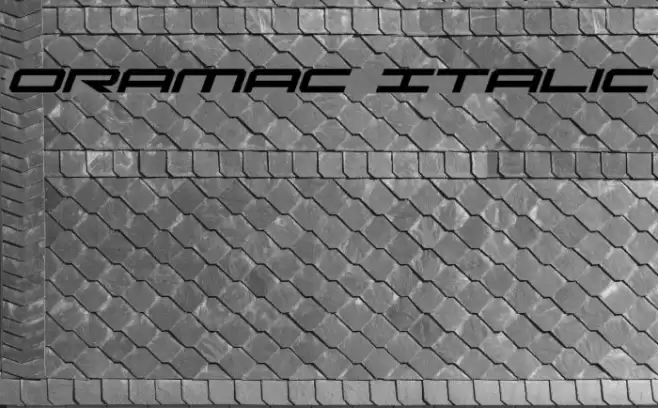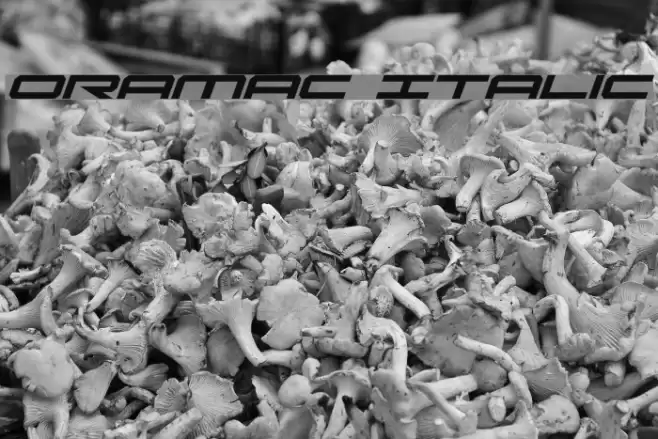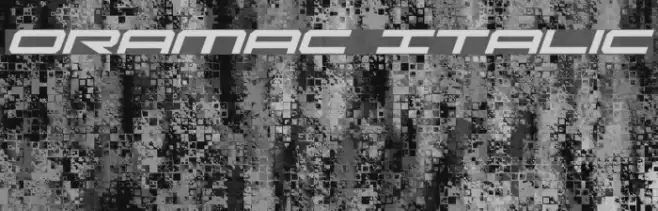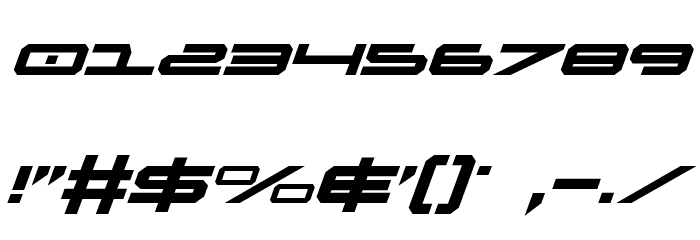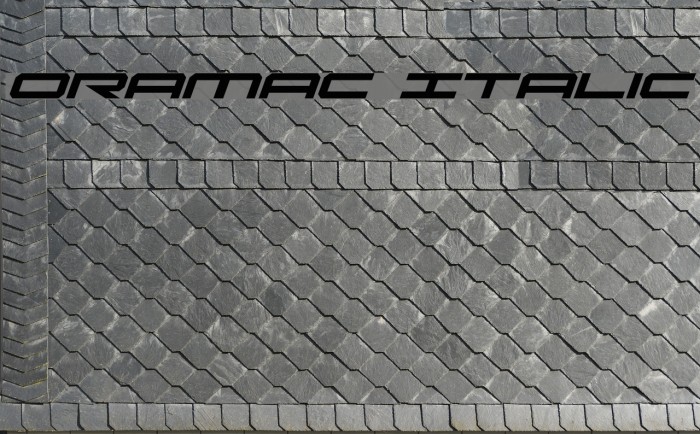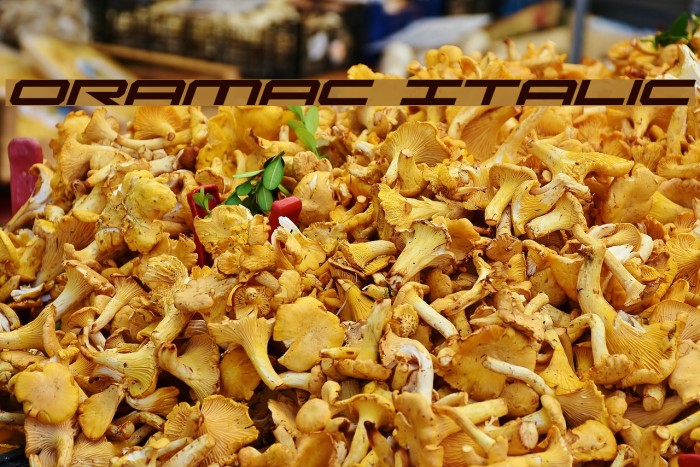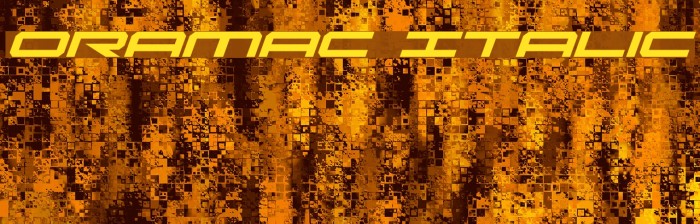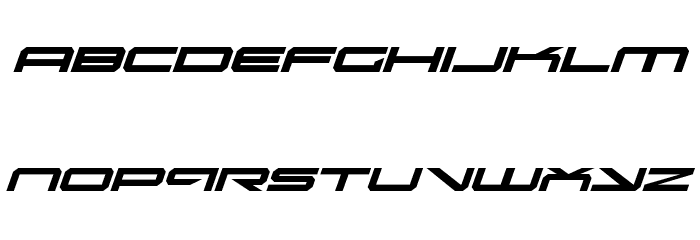
Oramac Italic Font
Oramac Italic Description
This font exhibits a futuristic and dynamic style, characterized by its italicized and angular letterforms. The design features sharp edges and a sleek, aerodynamic appearance, giving it a sense of motion and speed. The uppercase and lowercase letters maintain a consistent slant, enhancing the italic effect. The numerals and special characters follow the same stylistic approach, ensuring uniformity across all glyphs. The font's modern aesthetic makes it suitable for projects that require a cutting-edge and contemporary look.
A futuristic, italicized font with sharp, angular letterforms from Sci-fi fonts.
- Proposed Projects: Ideal for technology branding, sci-fi themed designs, video game titles, and automotive advertising.